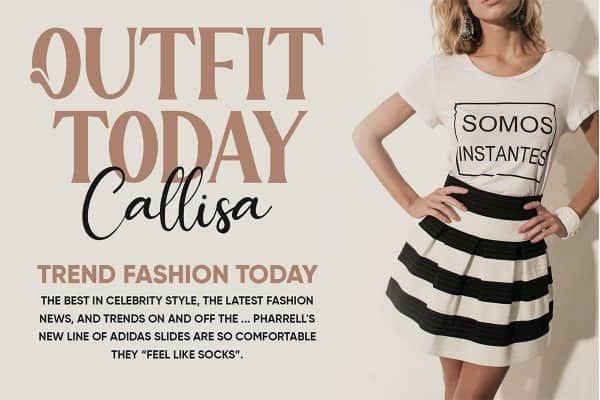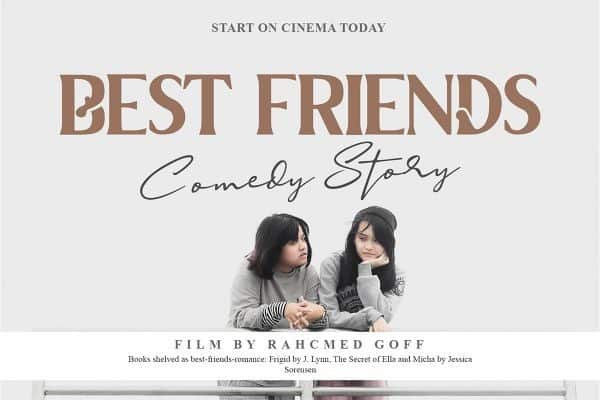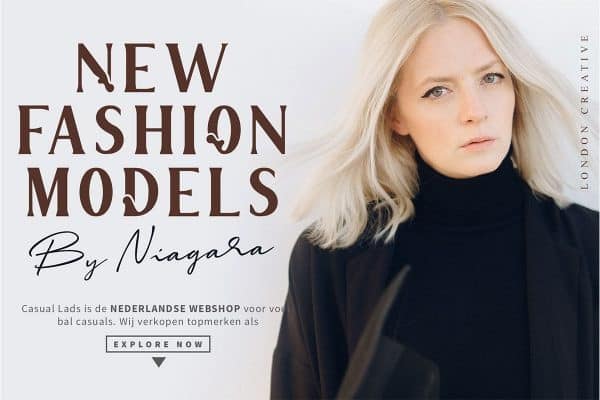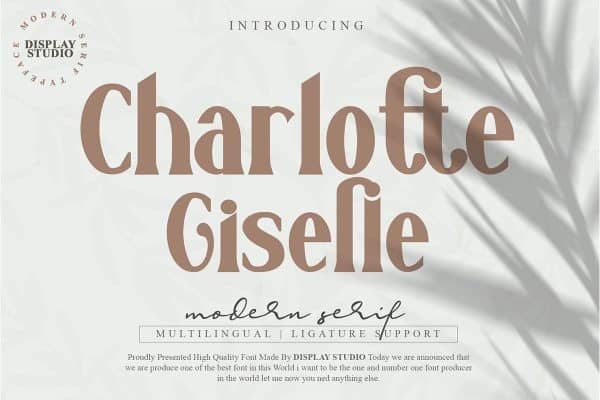
Introducing the new Charlotte Giselle Serif Font!!! Charlotte Giselle is a elegant and classy serif typeface – This font is both modern and nostalgic and works great for logos, magazine, social media. Already matched up and ready to be used together for your next design! For those of you who are needing a touch of elegant, stylish, classy, chic and modernity for your designs, this font was created for you!